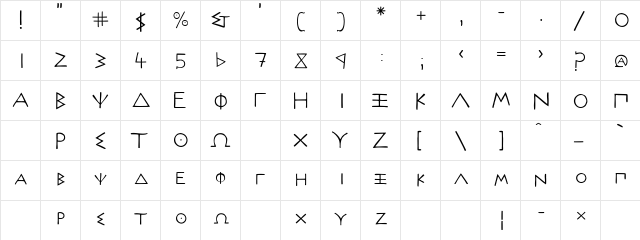
AcropolisThen Roman
Design Context for AcropolisThen Typeface
AcropolisThen takes a measured approach to typography — its balanced proportions and neutral character make it a reliable workhorse for both digital and print work.